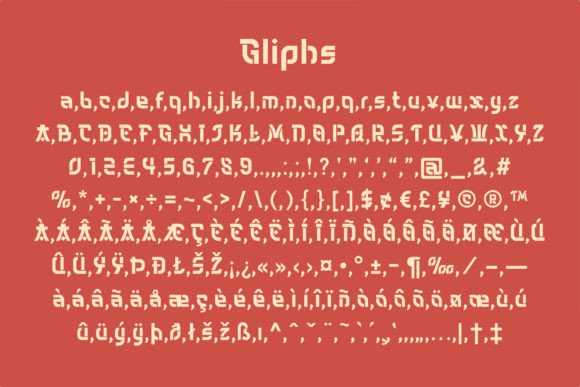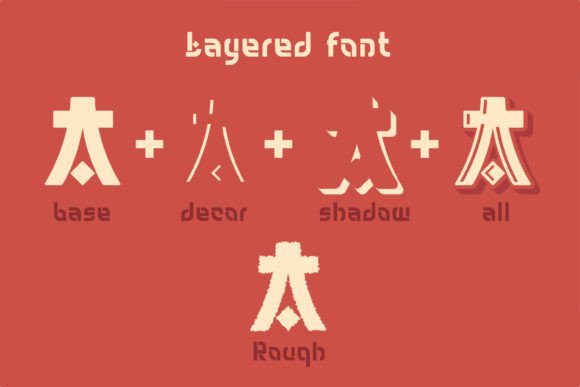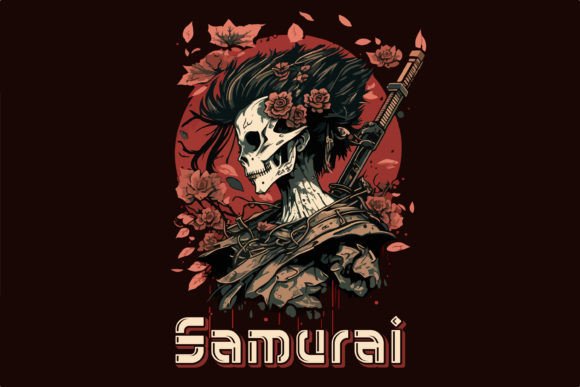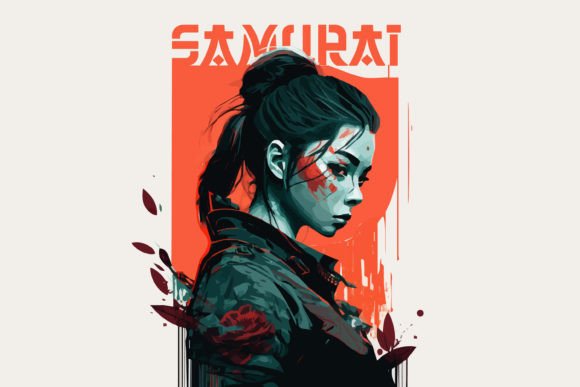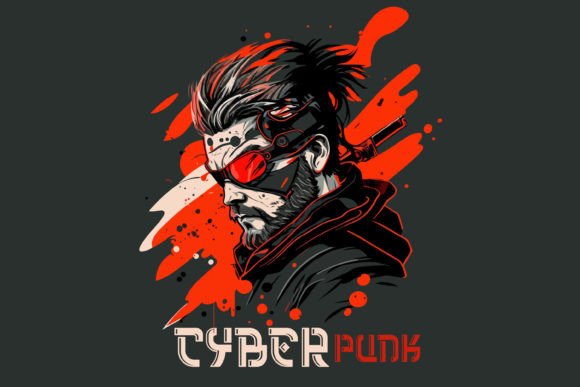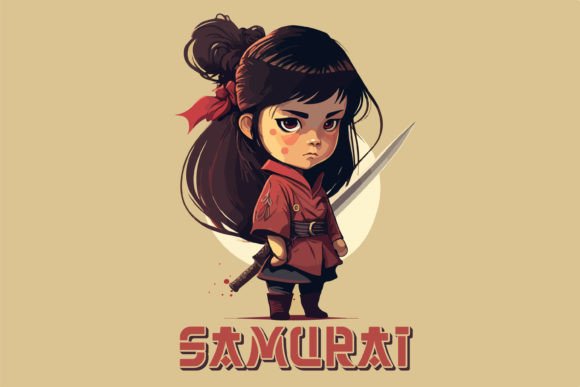
I still remember the day I stumbled upon the perfect font for my design project. I was working on a futuristic-themed campaign for a tech company, and I needed a font that would convey power, dynamism, and a hint of Asian flair. After hours of scouring through font libraries and marketplaces, I came across **Asian Cyborg Font**. It was love at first sight! ✨ The sleek lines, bold shapes, and futuristic twist instantly caught my attention. In this article, I’ll share my experience with Asian Cyborg Font, its features, and how to make the most of it in your designs.
An Honest Review of Asian Cyborg Font
• ✨ Unique and bold shapes that give a nod to traditional Asian typography while incorporating a futuristic twist.
• ✅ Sleek and sophisticated appearance perfect for creating designs that exude power and dynamism.
• 🌟 Modern and futuristic feel that’s perfect for tech, gaming, or sci-fi themed projects.
While Asian Cyborg Font is an amazing addition to any design project, there are a few things to keep in mind: 🤔
• ⚠️ Limited use in body text – due to its bold and futuristic nature, Asian Cyborg Font might not be the best choice for lengthy paragraphs.
• ⚠️ Requires careful kerning – some characters may require manual kerning to achieve optimal spacing.
3. Experiment with OpenType features like ligatures and stylistic alternates to add more flair to your design.
The Designer Inspiration Behind Asian Cyborg Font
The story behind Asian Cyborg Font is one of inspiration and creativity. According to the designer, the font was inspired by the neon-lit streets of Tokyo and the futuristic landscapes of sci-fi movies. The goal was to create a font that would capture the essence of Asian aesthetics while incorporating a futuristic twist.
Q: What type of projects is Asian Cyborg Font best suited for?
A: Asian Cyborg Font is perfect for projects that require a modern and futuristic feel, such as tech, gaming, or sci-fi themed designs.
Q: Is Asian Cyborg Font suitable for body text?
A: Due to its bold and futuristic nature, Asian Cyborg Font might not be the best choice for lengthy paragraphs. It’s best used for headings, titles, or short bursts of text.